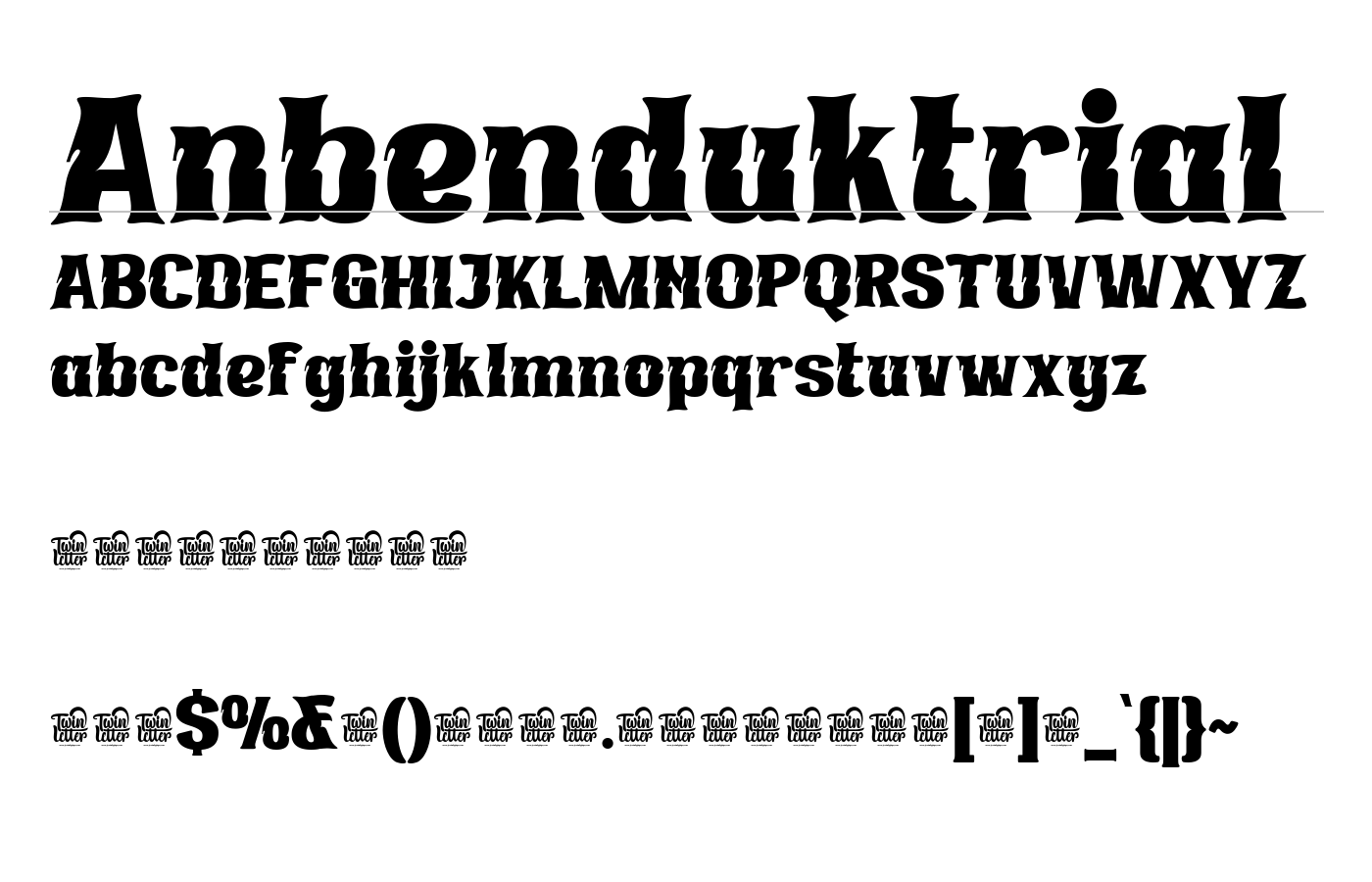
Anbenduktrial is a bold, condensed serif font with a strong vintage and industrial character. Its thick, textured strokes and distinctive sharp serifs give it a rugged yet stylish appearance, making it perfect for impactful headlines, logos, and branding that require a dramatic, old-fashioned feel with modern flair. This font works well in designs aiming to convey strength and authenticity with a touch of retro charm.
Anbenduktrial Font
About Anbenduktrial Font
| Font family | Anbenduktrial Font |